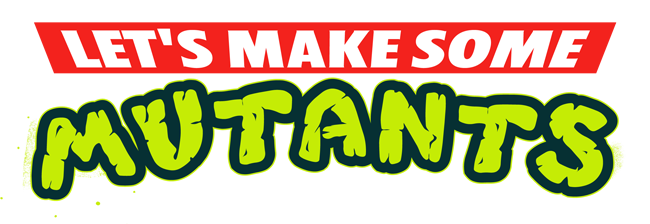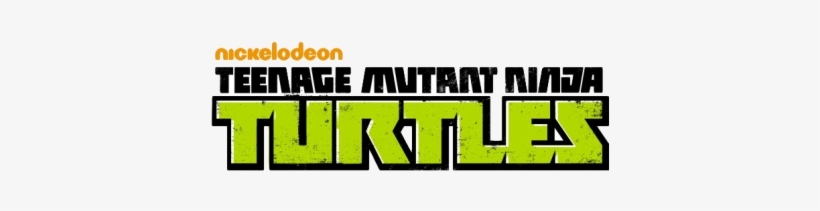
Fans have recreated the fonts from the movies so you can generate your own turtle power letters for free!
The font is licensed as free. The lettering for the green arched “turtles” is very similar to a font called turtles by neale davidson. Free teenage mutant ninja turtles fonts (.ttf &.otf).
This thick, distressed typeface is based on the popular clasic teenage mutant ninja turtles logo. Search from a wide range of typography fonts Teenage mutant ninja turtles available in windows and mac os x version.
So far only with basic latin letters. C 2000 neale davidson based on the title logo of the 1980s toyline teenage mutant ninja turtles a bit of a fantasy look with jags and crags in each of the otherwise smooth lettering full character set added by dieter steffmann. Teenage mutant ninja turtles logo generator.